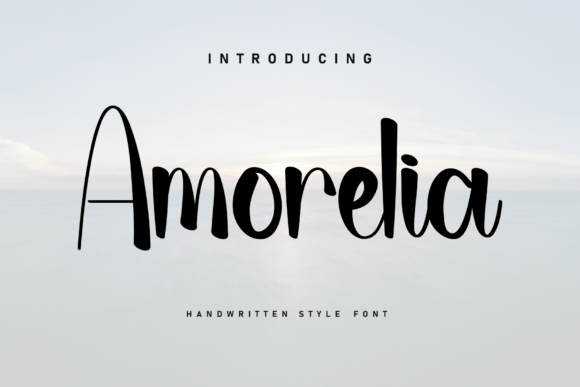
The Amorelia Font: A Charming Handwritten Delight for Designers
I’ll never forget the design project that led me to discover the beautiful Amorelia font. I was working on a branding project for a boutique client, and I was struggling to find the perfect handwritten font that would capture the warm, inviting essence of her business. That’s when I stumbled upon Amorelia, and it instantly became my go-to choice. With its smooth strokes and organic lines, this charming font exudes a sense of relaxed perfection that’s perfect for a variety of design projects.
An Honest Review: The Good and the Quirky
What I Love About Amorelia ✨
- 💕 Smooth, flowing strokes that create a sense of warmth and approachability
- 🎨 Versatile and adaptable to various design projects, from branding to social media graphics
- 🌈 Beautifully crafted to evoke a sense of handmade charm
- ⚠️ Limited character set compared to some other fonts, which may limit its use for certain languages or special characters
- 🤔 May not be the best choice for very formal or corporate designs, as it leans more towards a casual, friendly vibe
The Designer Inspiration Behind Amorelia
While the true story behind Amorelia’s creation is unknown, it’s easy to imagine that the designer was inspired by the beauty of handwritten letters and the joy of creating something imperfectly perfect. Perhaps they were influenced by the flowing scripts of vintage posters or the elegant handwriting of a favorite pen pal. Whatever the inspiration, Amorelia is a true gem that brings a touch of warmth and personality to any design project.
| Font Name | Amorelia Font |
| Author | KC Production |
Q: What type of projects is Amorelia best suited for?
A: Amorelia is a versatile font that’s perfect for a variety of design projects, including branding, invitations, social media graphics, and more.
Q: Does Amorelia support OpenType features?
A: Yes, Amorelia supports OpenType features like ligatures, stylistic alternates, and glyphs, which can add visual interest to your text.